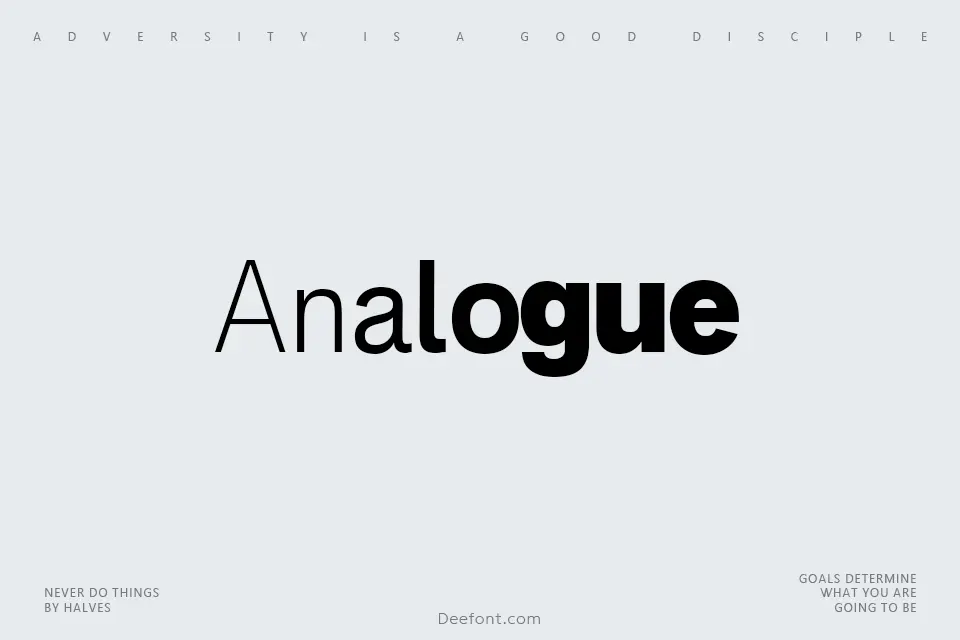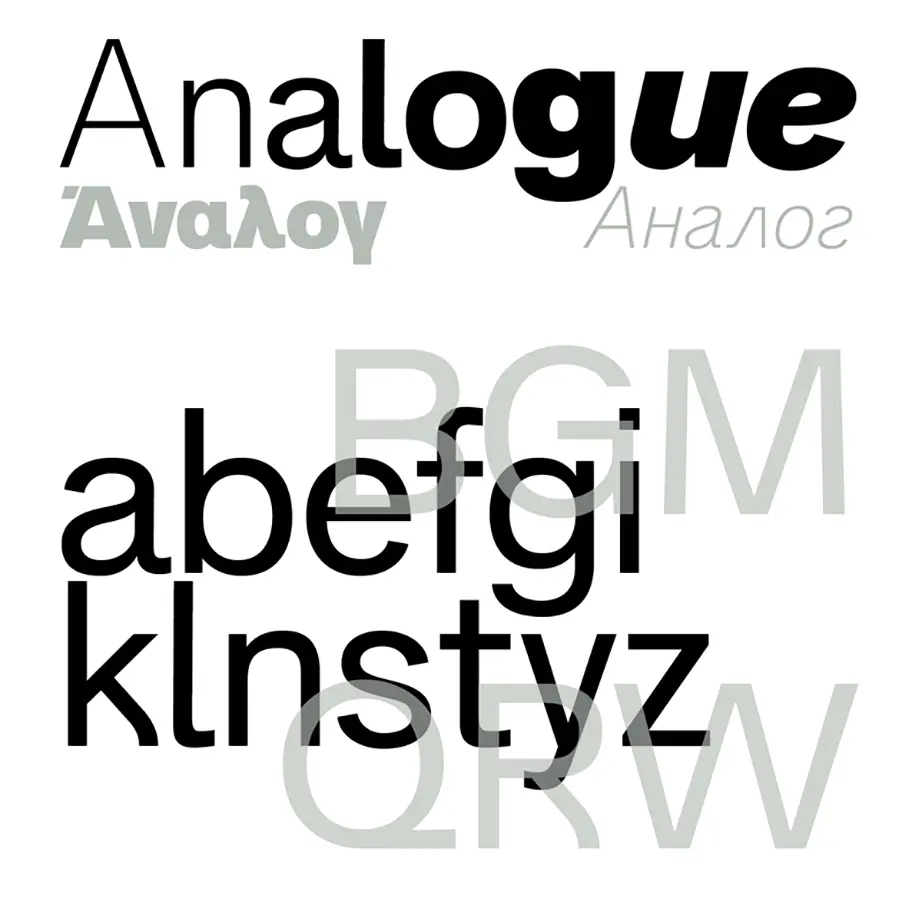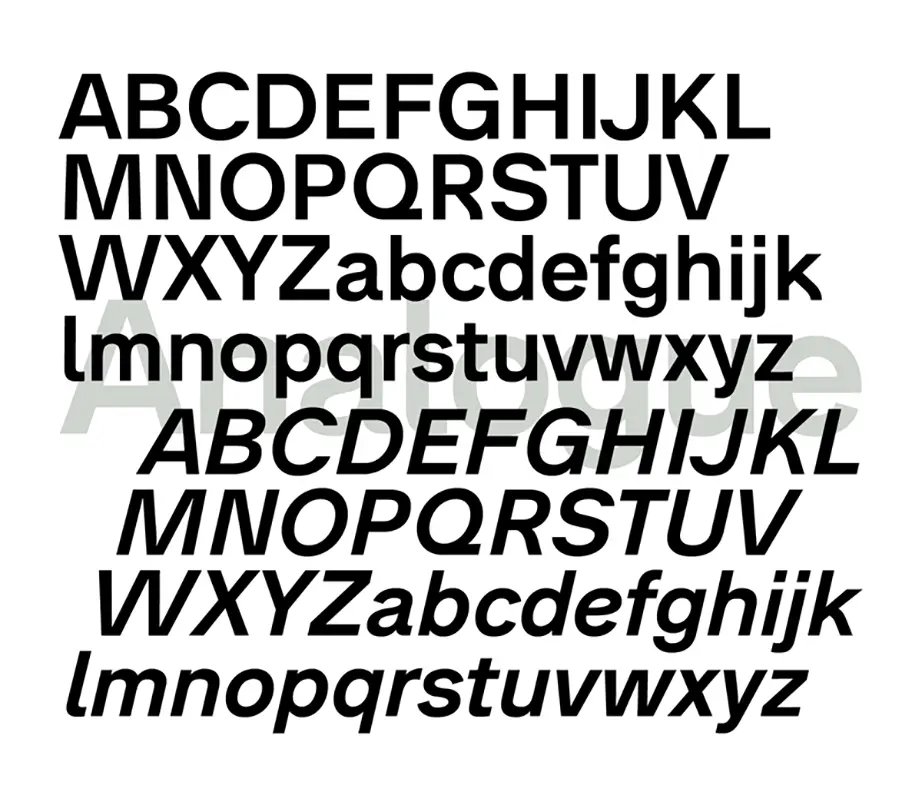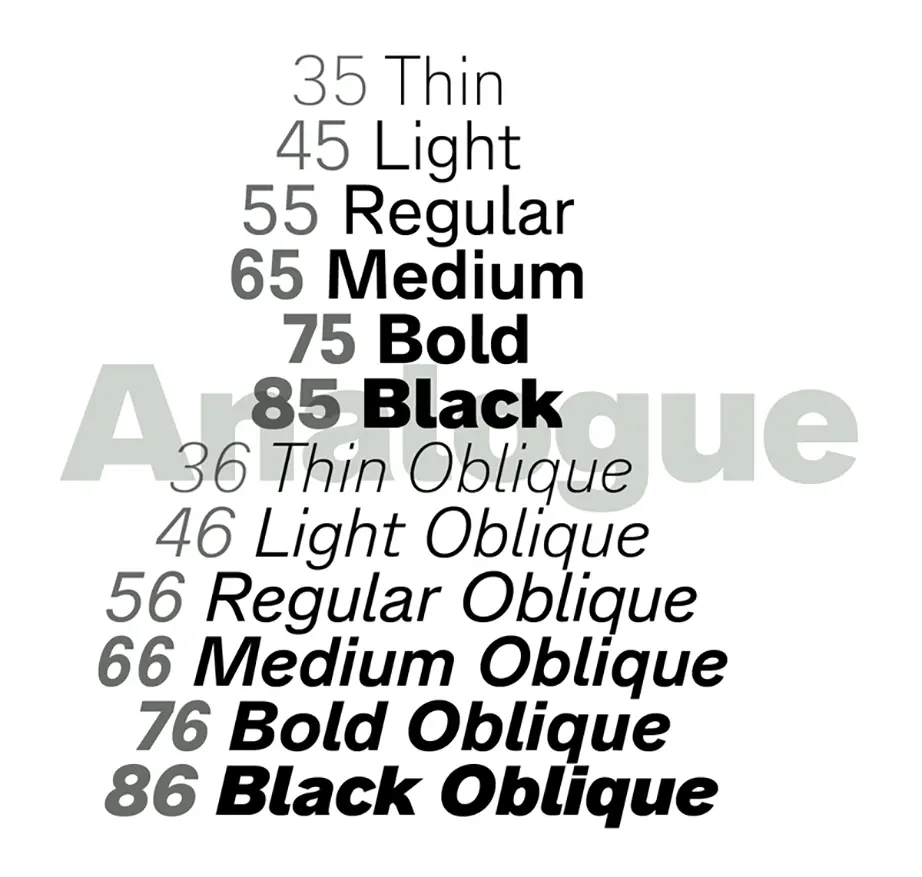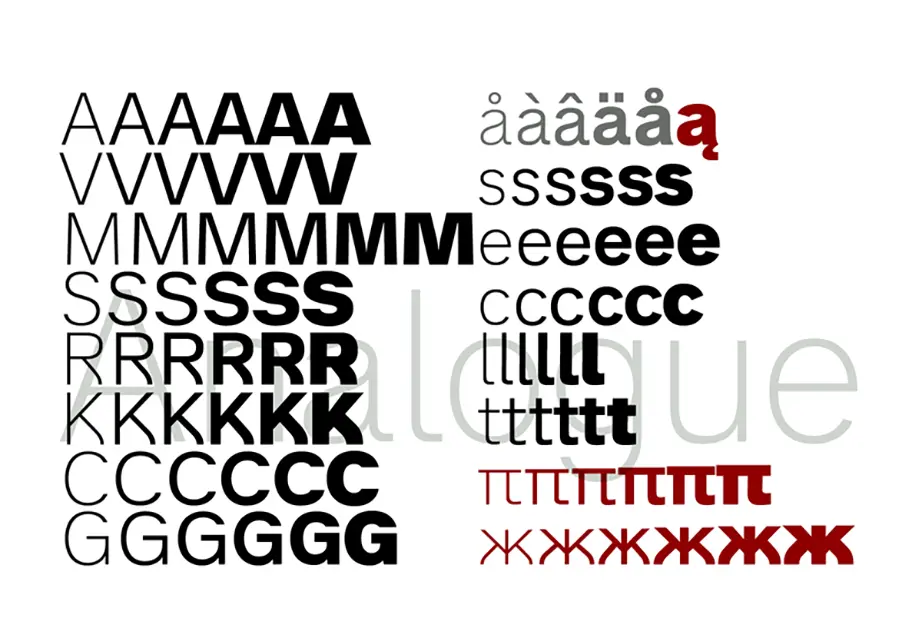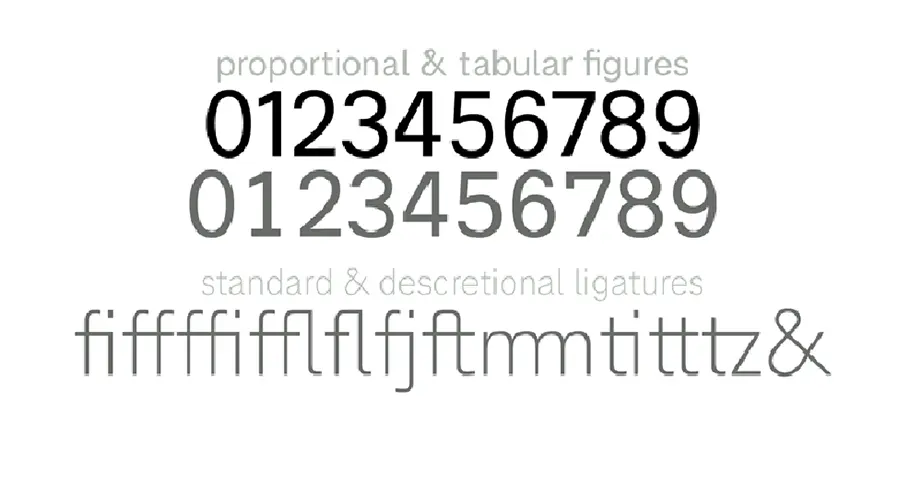
Analogue Font Family
Analogue is a traditional sans serif typeface designed with functional friendliness and classical elegance. Featured prominently by its distinctive hooked lowercase “l,” this grotesque sans serif offers consistently proportioned letterforms, strongly slanted italics, and comprehensive multilingual support. Inspired by the historical Akzidenz Grotesk, Analogue combines timeless design principles with modern refinement, making it ideal for editorial design, branding, and professional typography applications requiring legibility and visual clarity